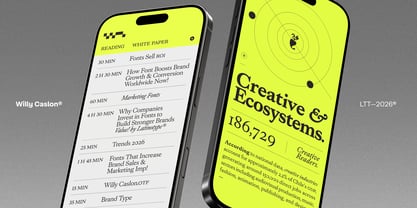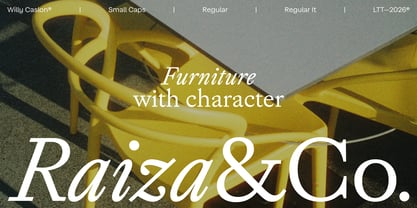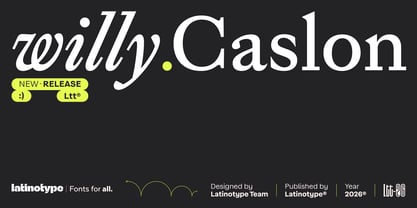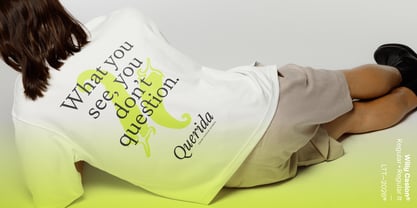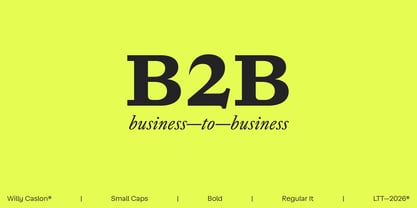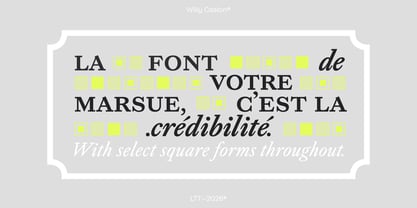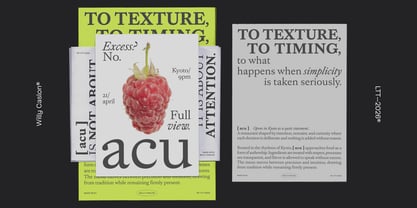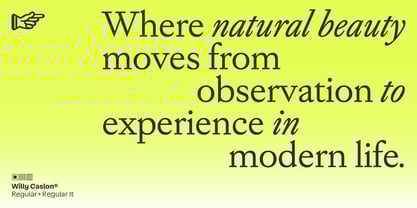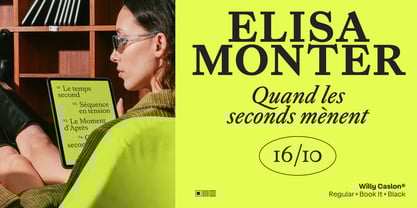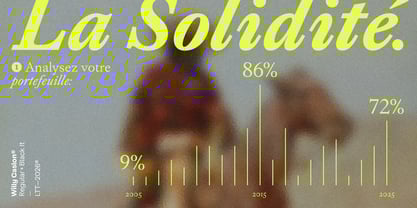
Willy Caslon
von Latinotype
Die Schriftfamilie Willy Caslon wurde von Juan Bruce, Latinotype Team entworfen und von Latinotype veröffentlicht. Willy Caslon enthält 10 Stile und Familienpaketoptionen.
Willy Caslon is a contemporary serif typeface that reinterprets the English tradition associated with William Caslon, adapting it to modern reading rhythms. The project proposes a meeting point between the historical legacy of transitional roman typefaces and Latinotype's editorial vision. Its design begins with a moderate modulation and a slightly slanted axis, characteristic of classic Caslon, but introduces greater formal control that intensifies and revitalizes its structures. The sharp terminals are among its most recognizable features, visible in both the serifs and letters such as a, c, and r. The curves narrow and concentrate, especially in the counters of the a and g and in the shoulder of the n, generating a more active rhythm within the text. The contrast intensifies at the ends of the strokes, reinforcing the typographic presence without affecting readability. The proportions are designed for both print and digital editorial contexts, with a balanced x-height and consistent ascender-descender relationships. The italic typeface has its own construction, and the uppercase letters have been specifically designed to integrate with the system, maintaining consistency in weight and typographic color. Willy Caslon retains a clear connection to Caslon's classic spirit but translates it into contemporary use, where legibility, rhythm, and character are central criteria. It is a typeface designed for editorial identities, digital projects, and applications where a serif with typographic presence plays an active role in content development.